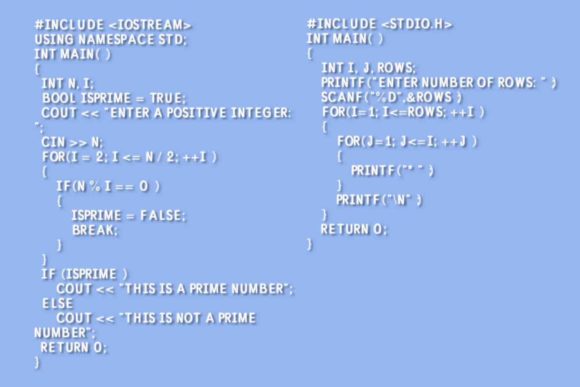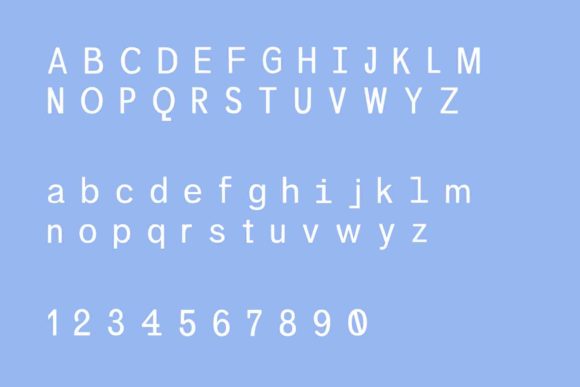
Introduction to Monospace Font
Remember that moment when you’re working on a creative project, and you just can’t seem to find the right font to give it that extra oomph? You scroll through page after page of options, and yet, nothing seems to fit. But what if I told you that the perfect font is out there, waiting for you to discover it?
Enter the Monospace Font, a sleek and modern sans serif font that’s sure to elevate your design to the next level. With its clean and simple lines, this font is the perfect addition to any project, whether you’re working on a website, a graphic design, or even just a simple text-based project.
Not only is the Monospace Font a valuable resource for designers, but it’s also incredibly versatile, making it a must-have in your design arsenal.
Key Features of Monospace Font
- High quality font with a fixed-width design, ideal for coding, programming, and creative projects.
- Perfect for use in coding, programming, and creative projects that require a clean and readable font.
Honest Review: Monospace Font
As a designer, I’ve worked with my fair share of fonts, but the Monospace Font has been a game-changer for my creative projects. Its clean and minimalistic design makes it perfect for coding, terminal screens, and even graphic designs that require a touch of retro charm.
One of the things I love about the Monospace Font is its versatility. I can use it on a transparent background to give my designs a sleek, modern look, or pair it with a solid color to create a bold statement. The font is available for free download, which is a major plus for designers on a budget.
Here are some of the things that work well with the Monospace Font:
- ✨ High quality design: The font is incredibly detailed and has a professional finish.
- ✨ Versatile: It can be used for a variety of design projects, from coding to graphic design.
- ⚠️ Limited language support: The font may not support all languages, which could be a problem for international design projects.
- ⚠️ Not suitable for body text: Due to its monospaced design, the font can be difficult to read for large blocks of text.
Overall, I’m extremely satisfied with the Monospace Font. Its high quality design and versatility make it a valuable addition to any designer’s toolkit. While it may have some limitations, I believe it’s a great resource for designers who want to add a touch of modernity to their creative projects.
Monospace Font
A Monospace Font is a type of font where every character has the same width, making it ideal for coding, design, and creative projects. It’s a versatile design resource that can be used in various applications, from coding to graphic design.
Tips for Getting the Most Out of Monospace Font
1. Use it for coding and design projects where a clear and readable font is essential.
2. Experiment with different font sizes and styles to achieve the desired look.
1. Coding and programming projects.
2. Graphic design and creative projects.
3. Presentations and documents that require a clear and readable font.